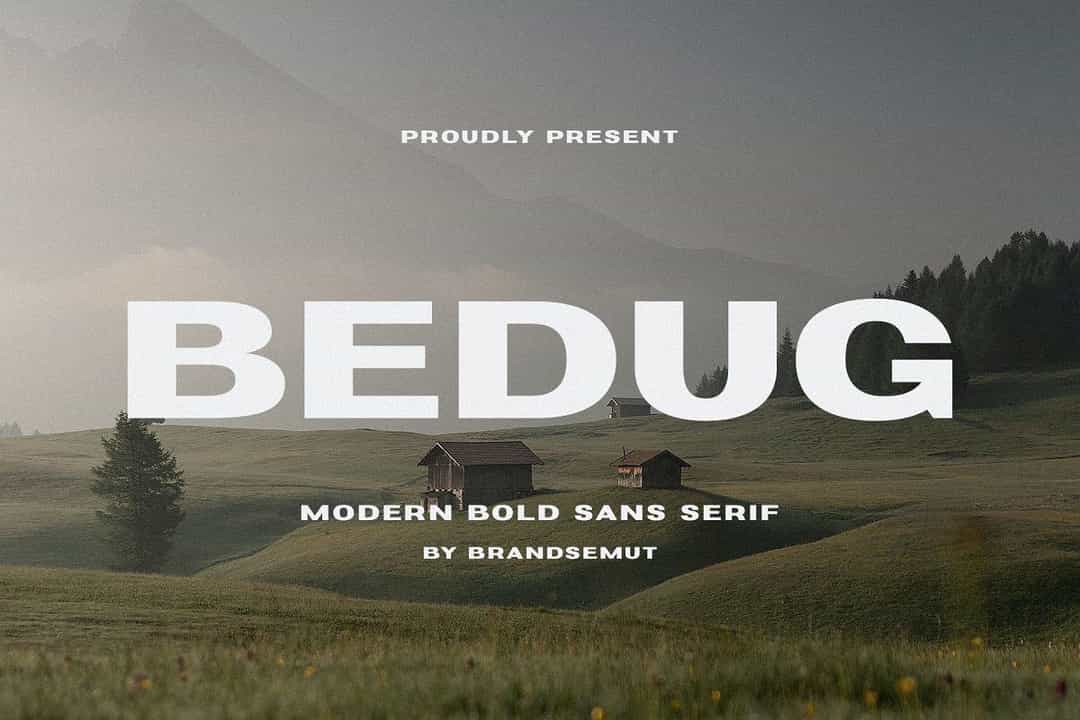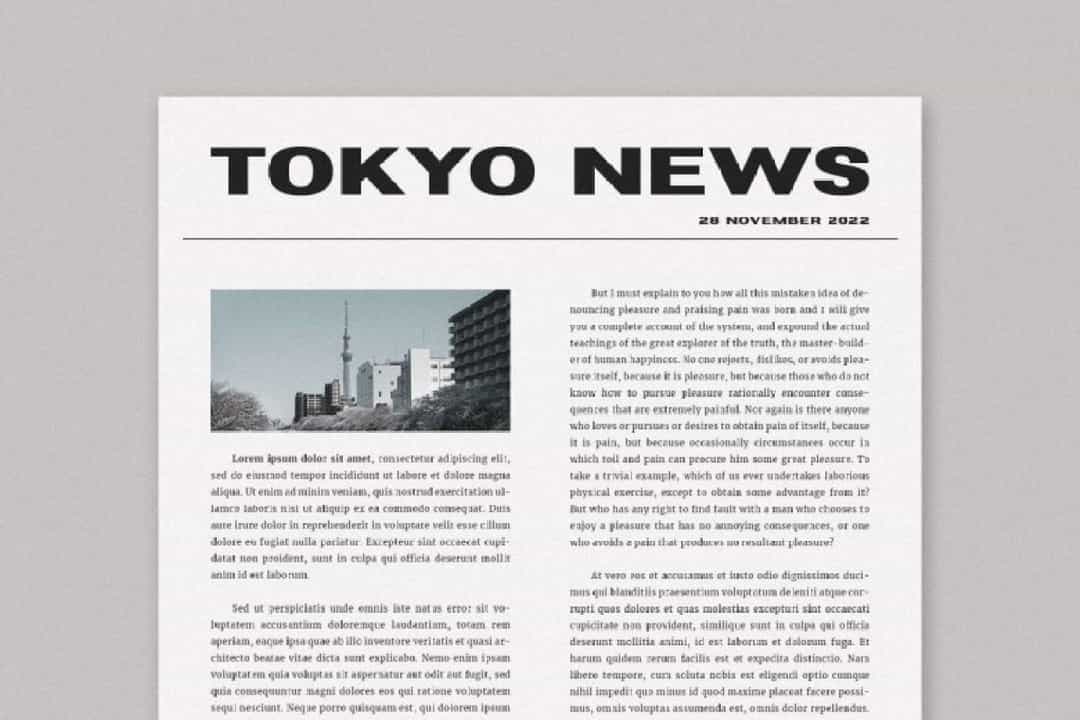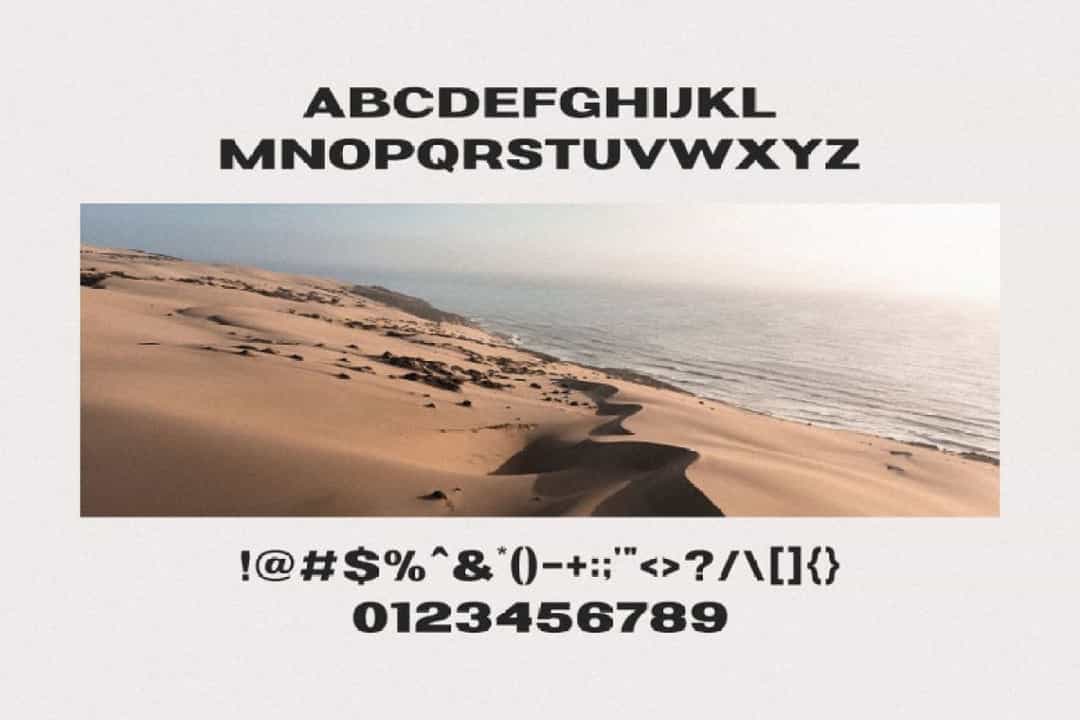
Bedug is a modern, bold sans serif font which can be utilized as a display font in logos, headings and subheadings. Additionally, Bedug works great as part of magazines’ branding, packaging or invitation projects as its clean lines and smooth curves add elegance and class to each project.